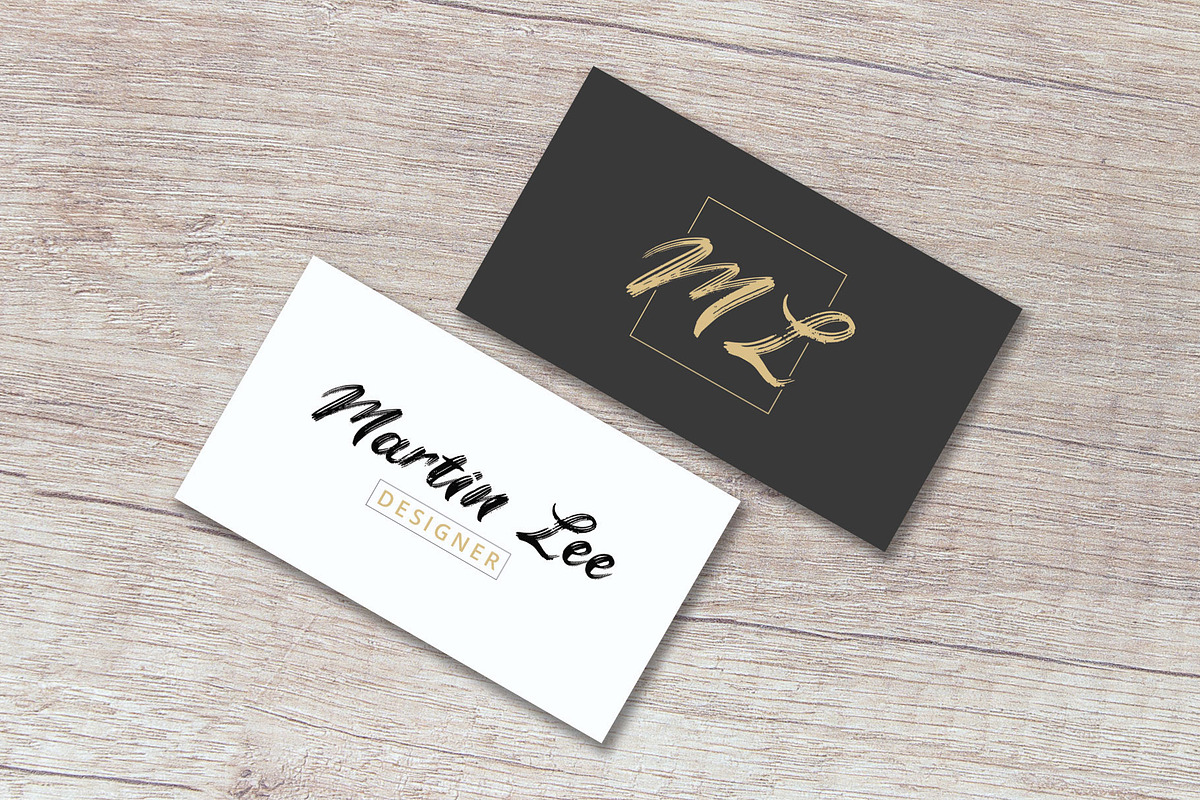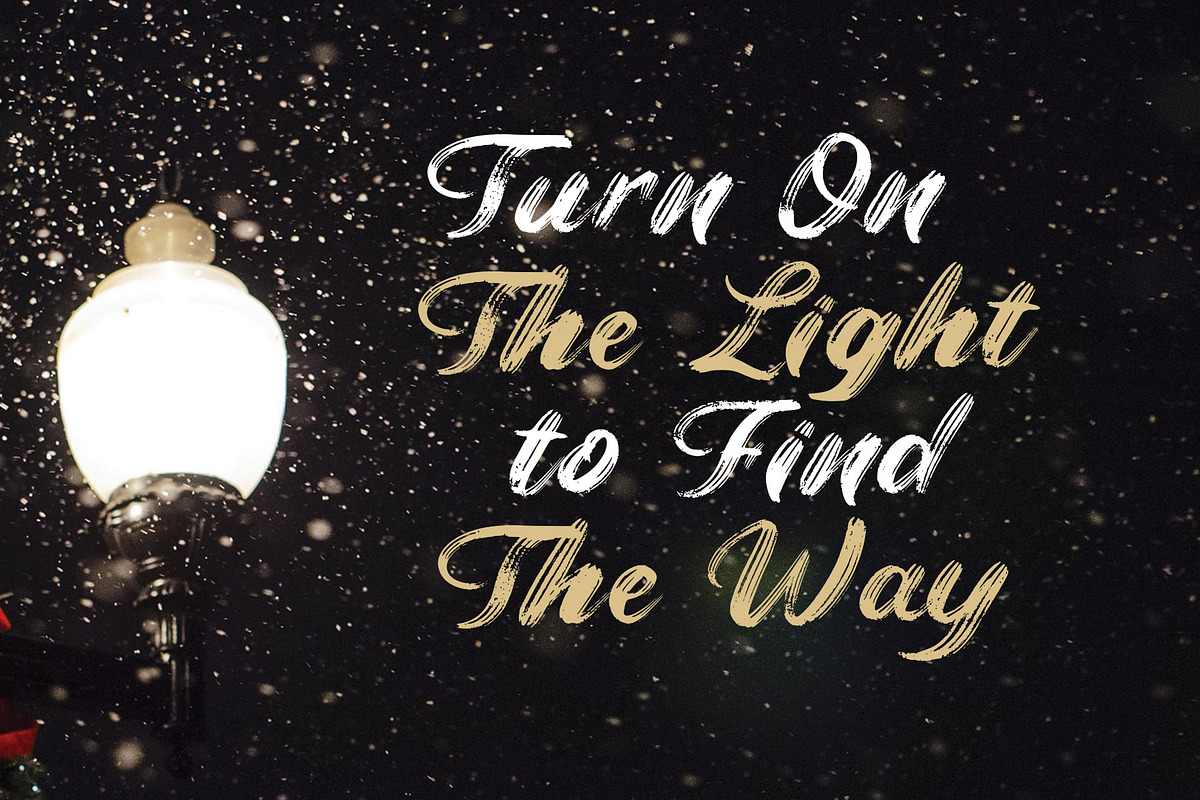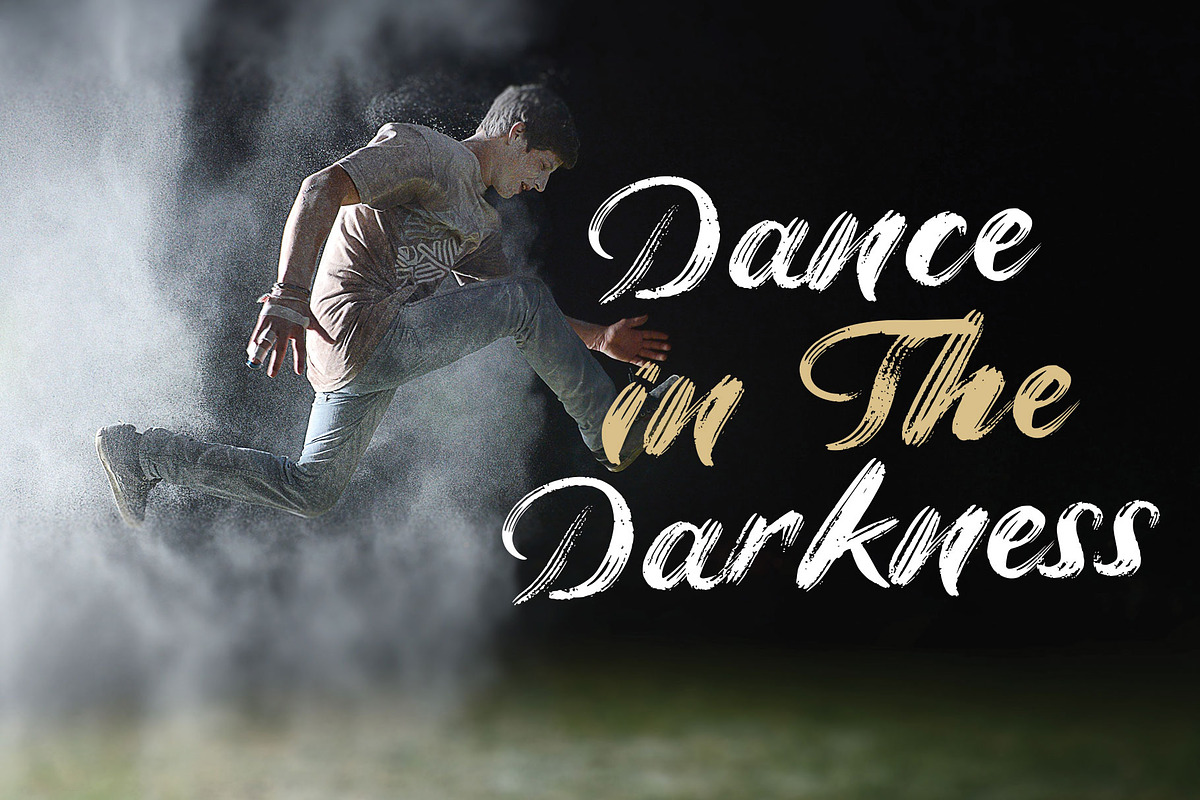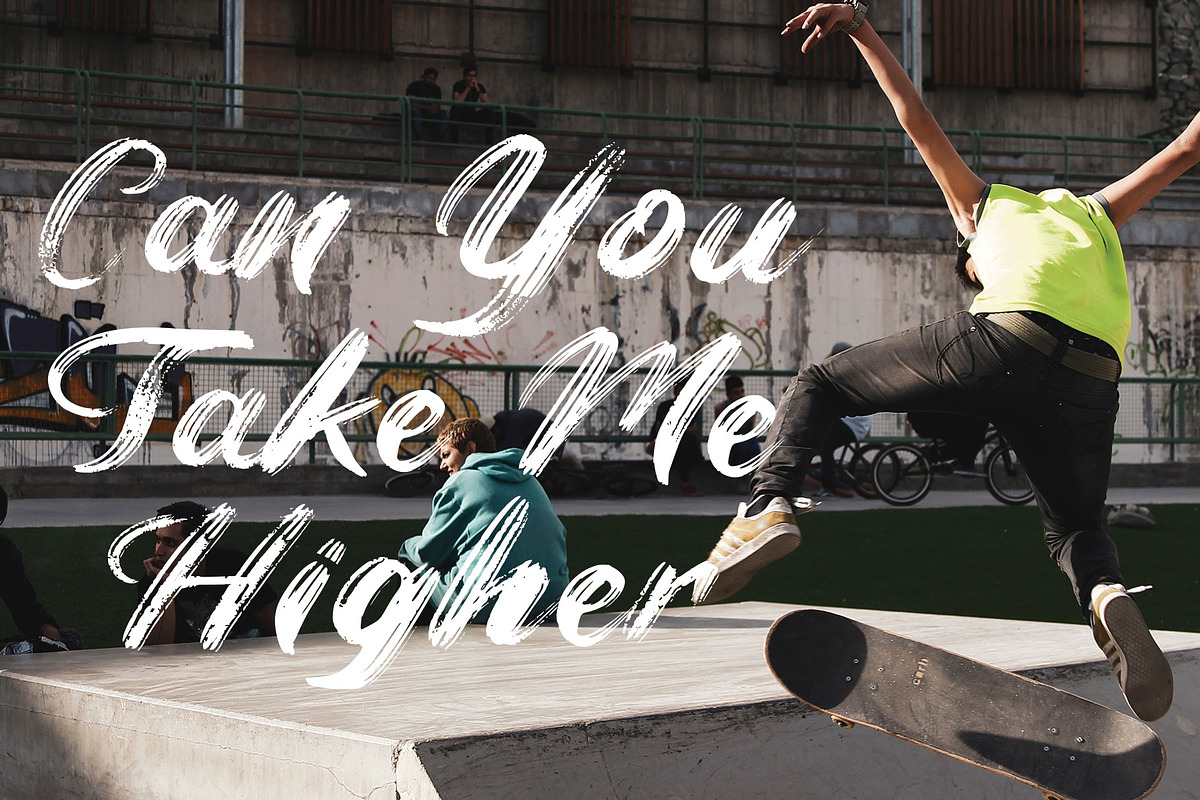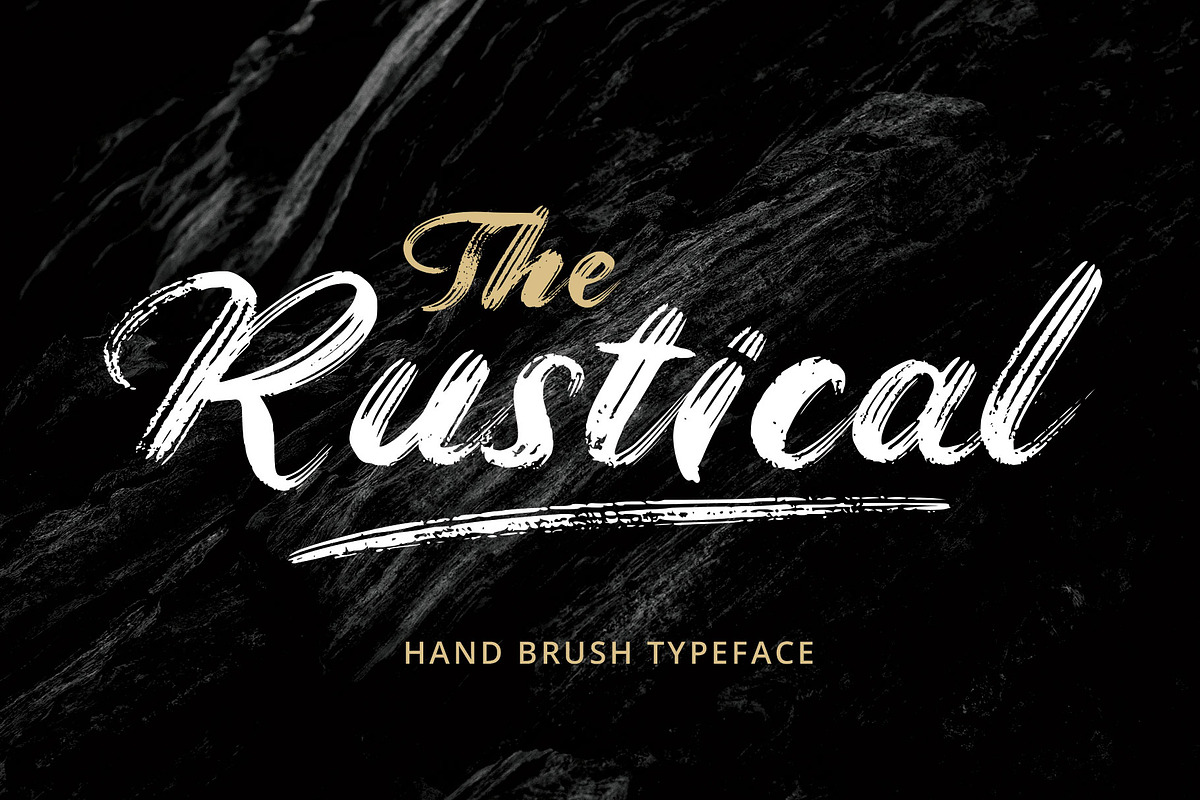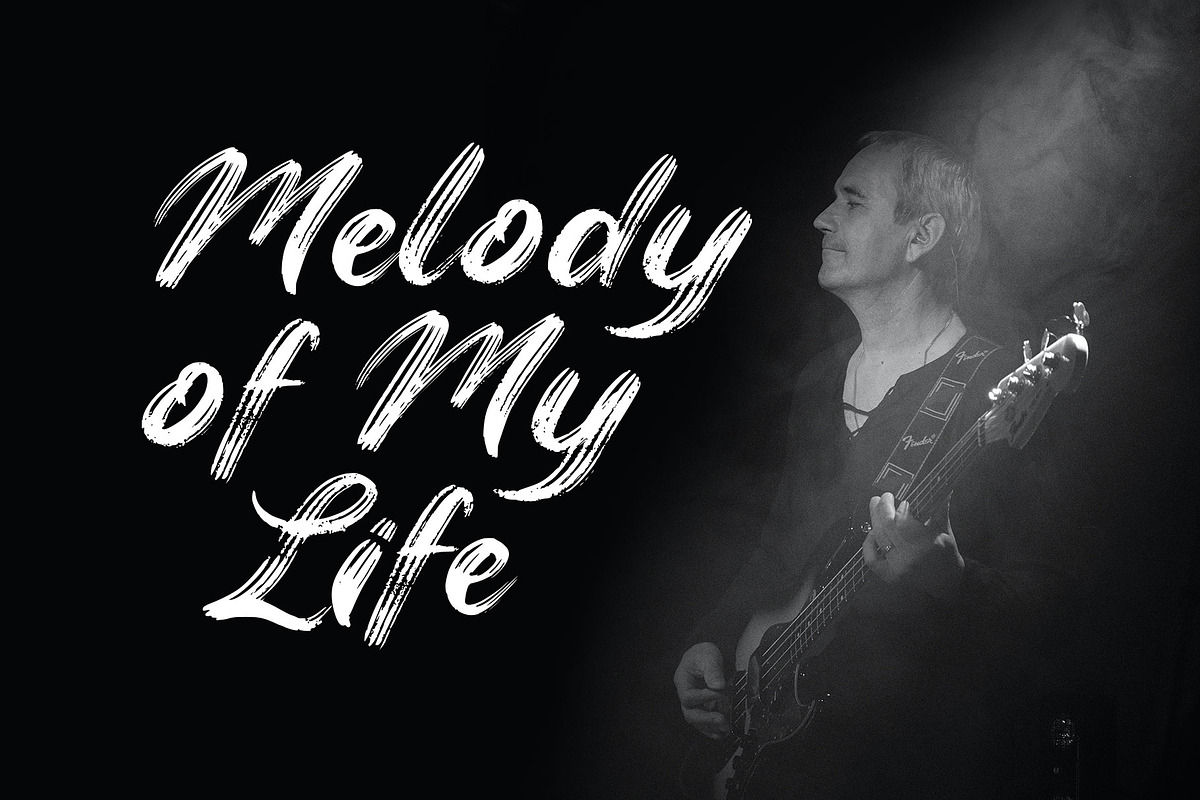
Rustical Brush Font
Rustical is a rustic, stylish handwritten brush font.It will be suitable for branding projects, quote designs, product packaging or just simply design with stylish text overlay to any background image.
Rustical Brush Font by LetterJos fits naturally into Branding, posters, packaging, typography.